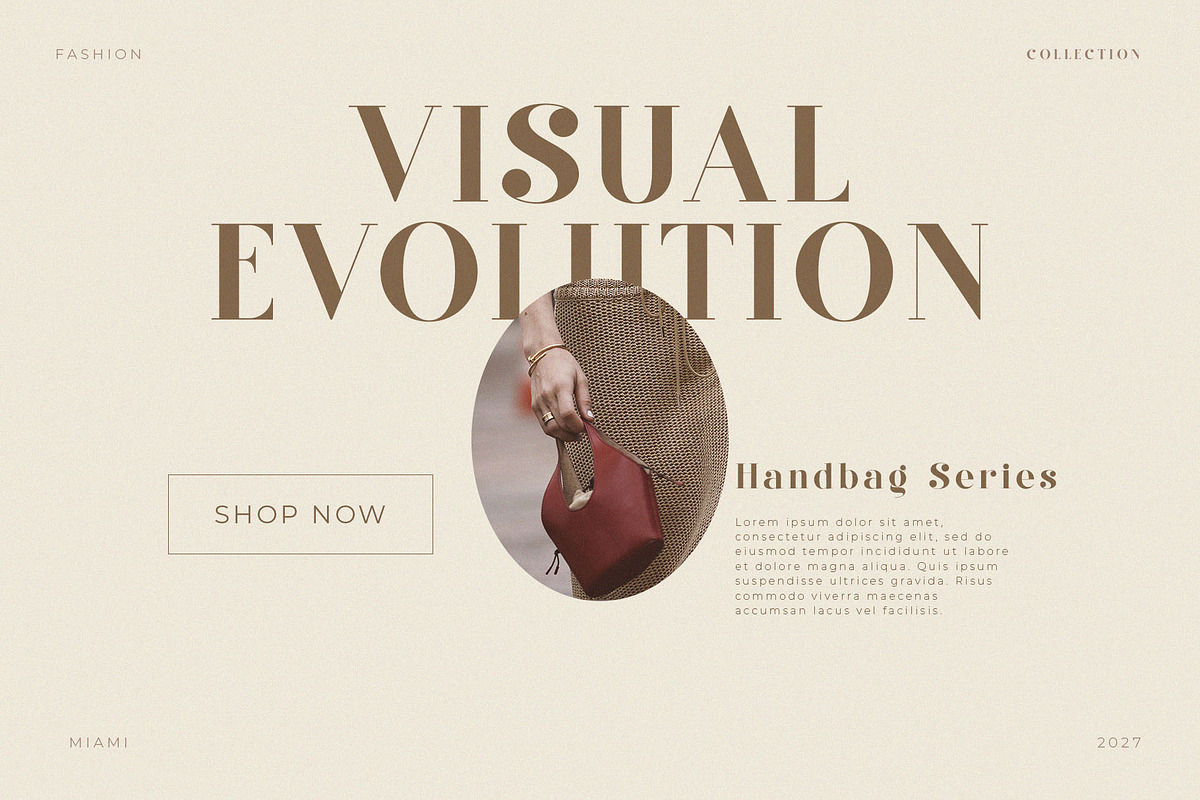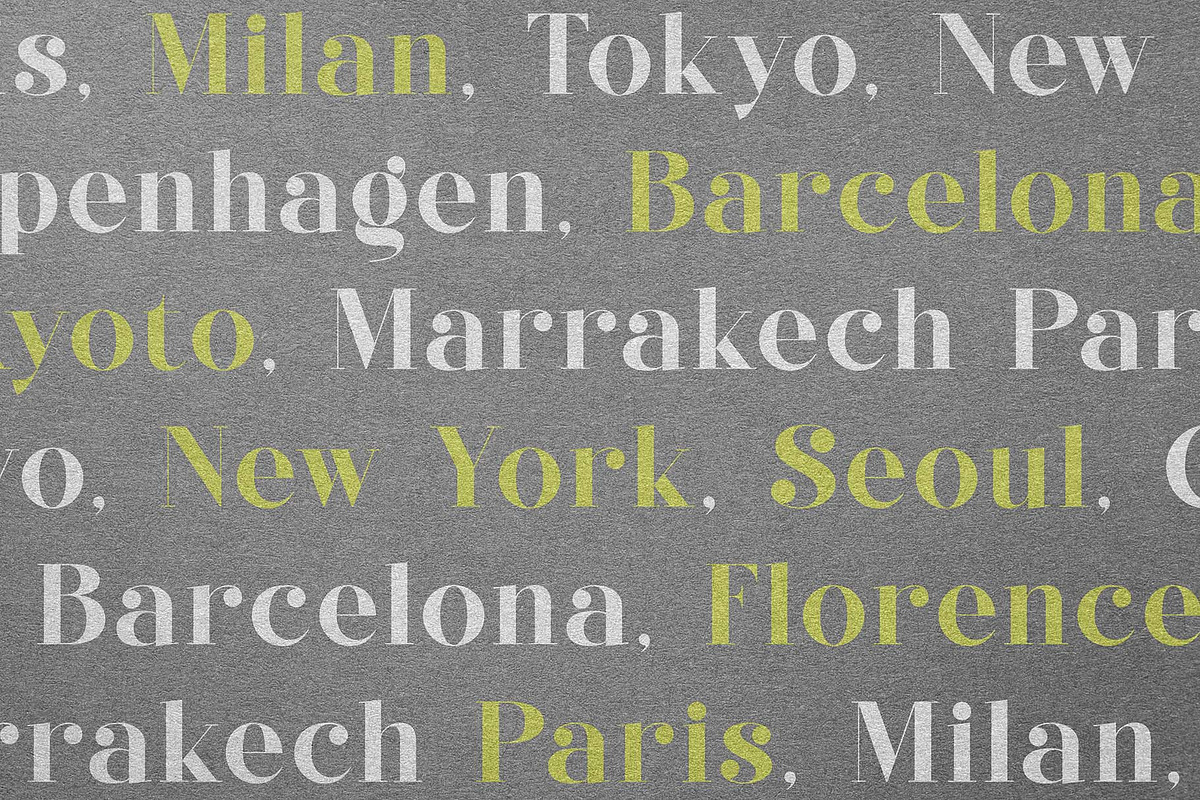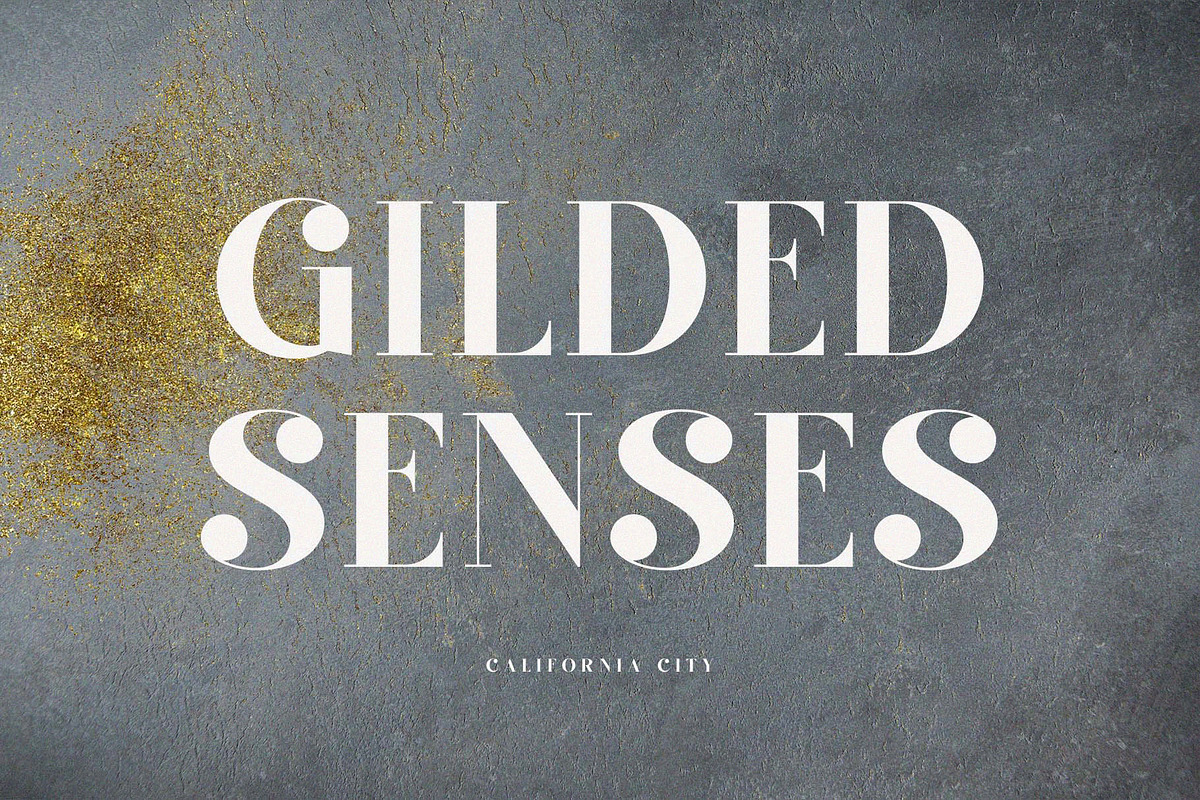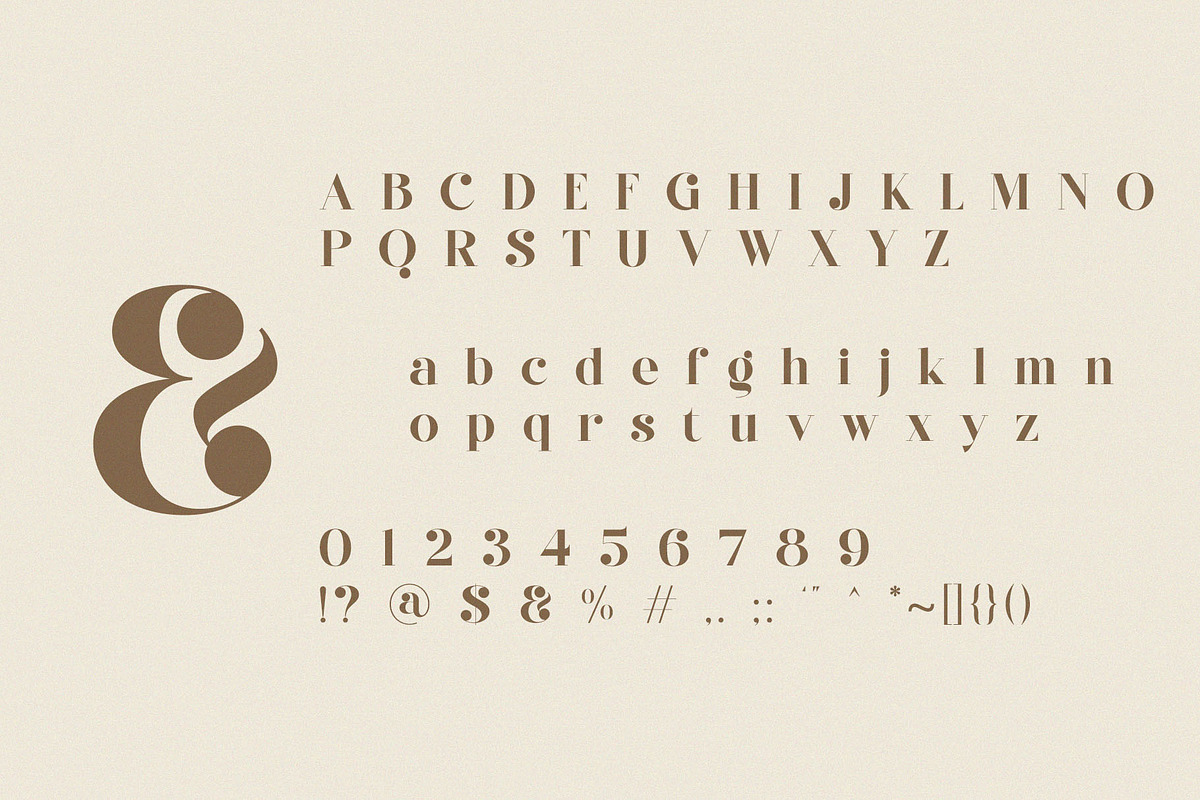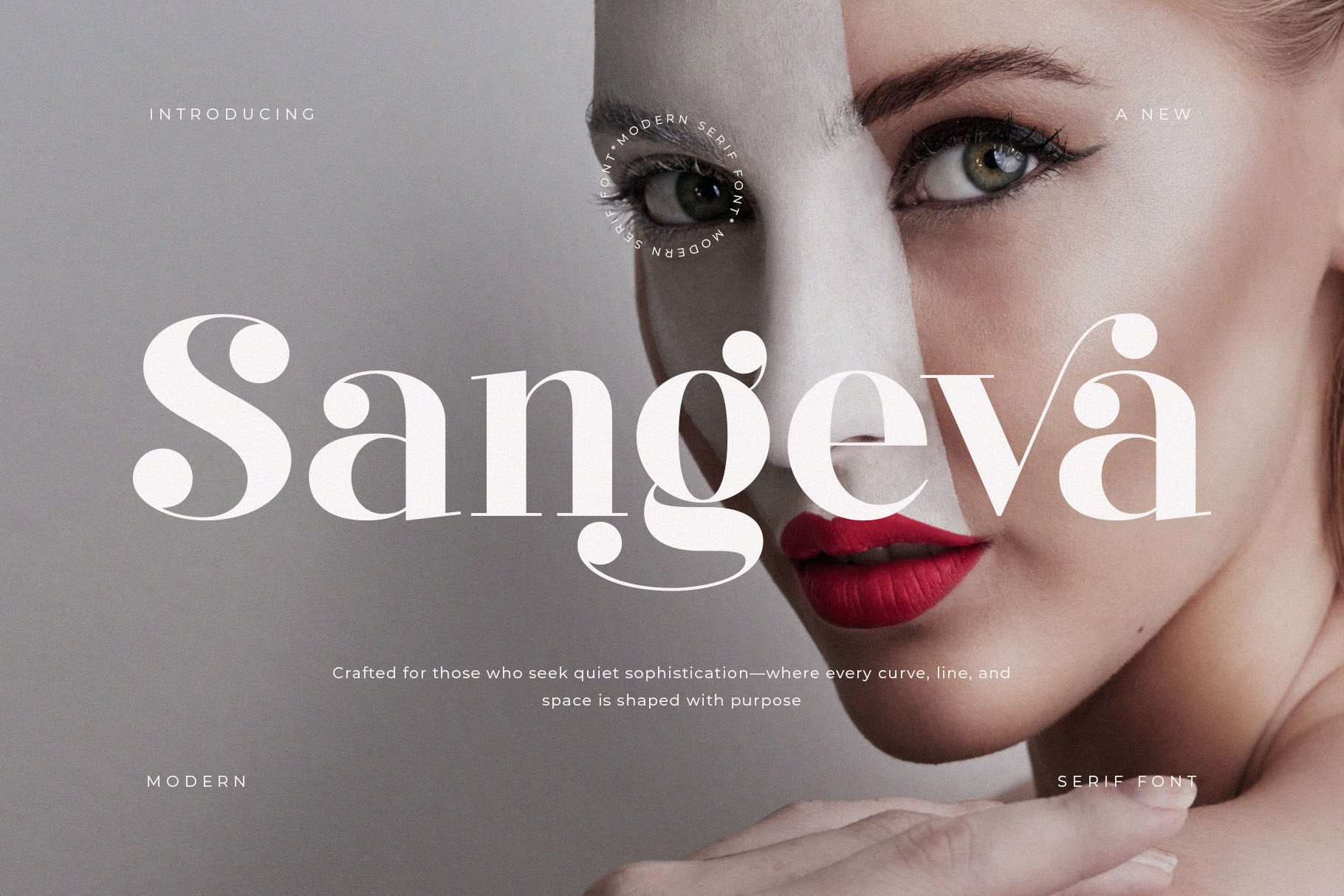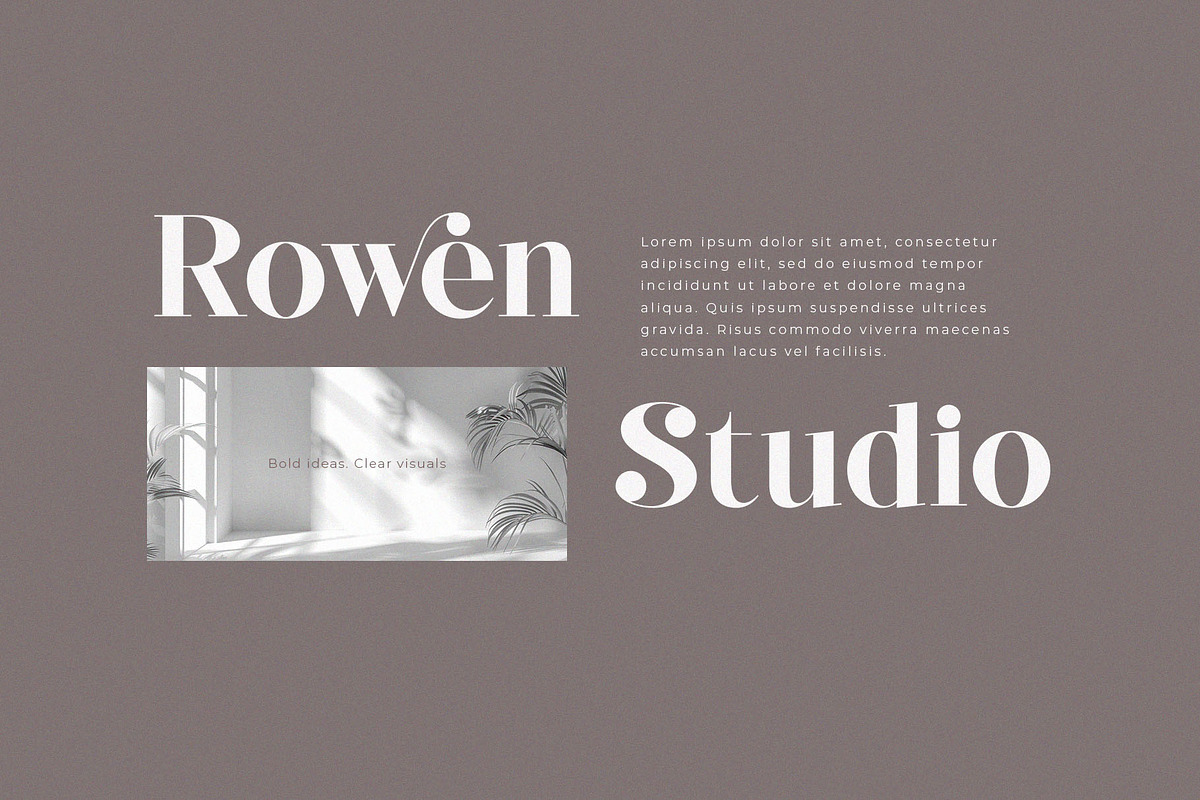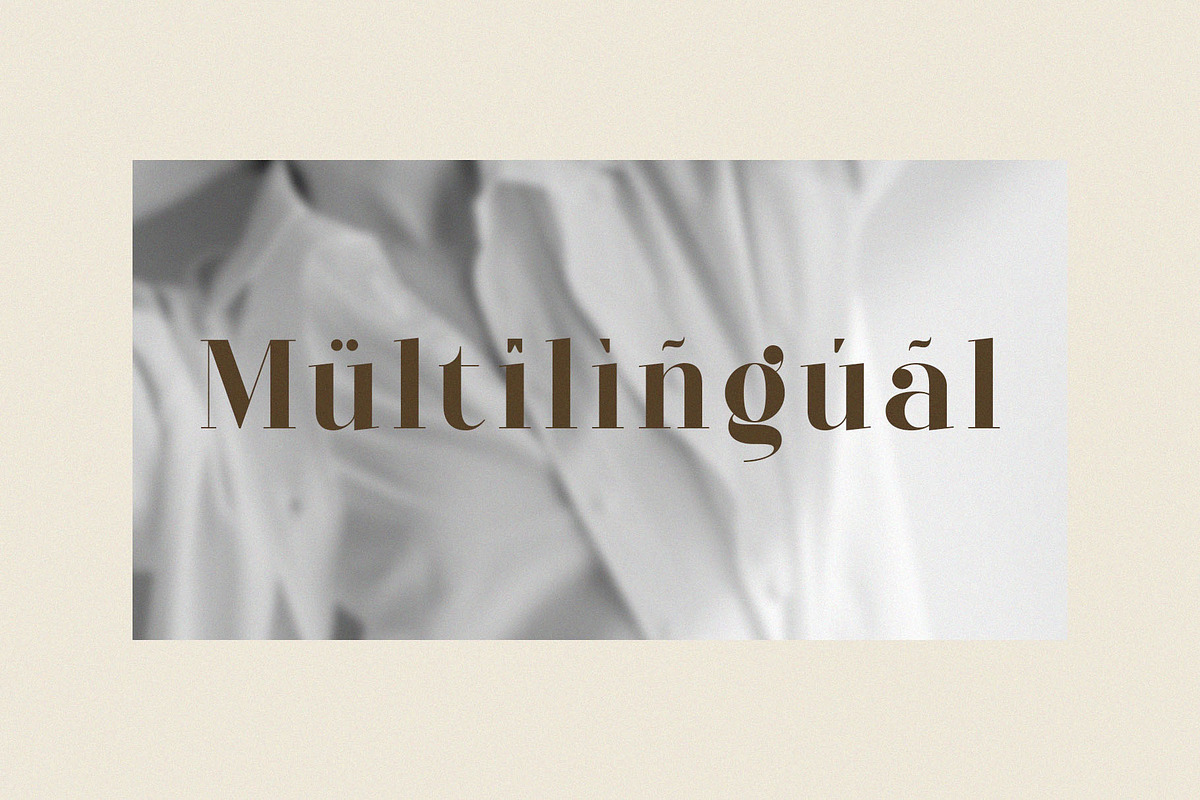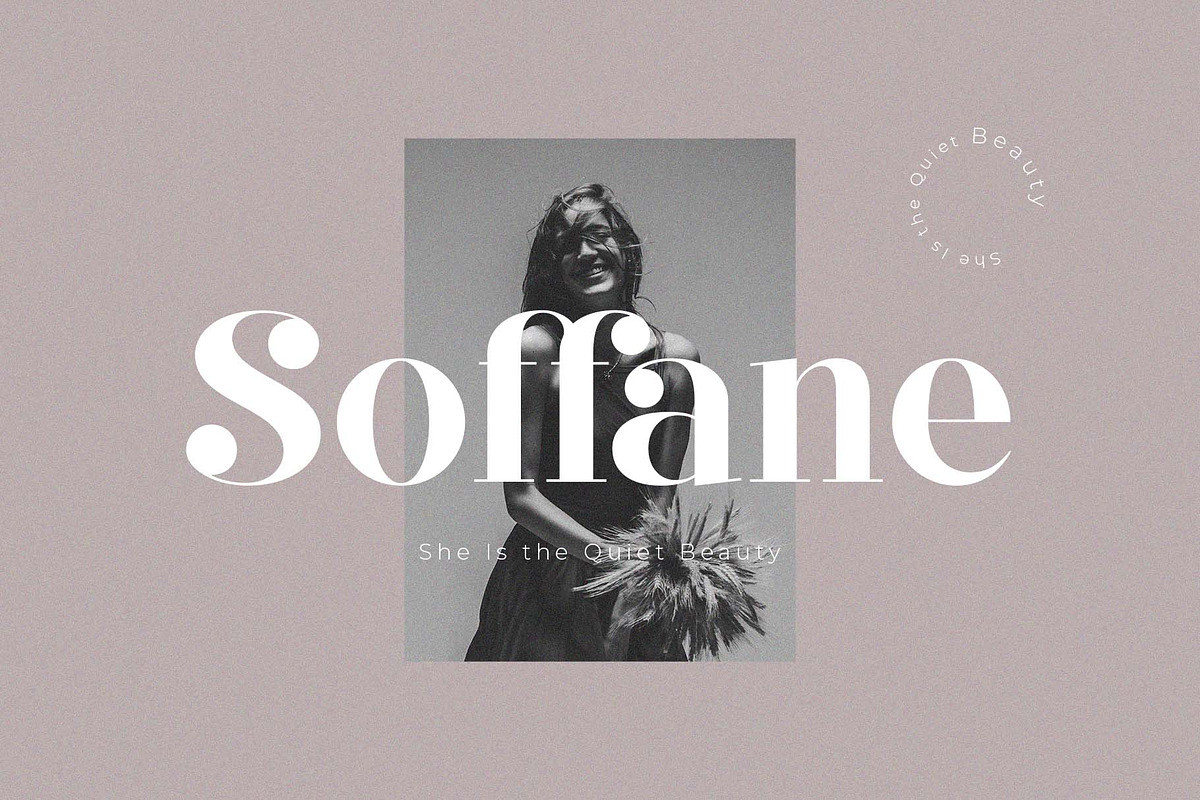
Sangeva – Elegant Modern Serif Font
Sangeva – Elegant Modern Serif Font with Uppercase & Lowercase for Luxury Branding and Editorial Design
Sangeva is a luxurious modern serif font that blends high fashion elegance with editorial sophistication. Designed with both uppercase and lowercase characters, this typeface features graceful curves, dramatic contrast, and stylish swashes — making it perfect for premium branding, beauty packaging, wedding invitations, magazine titles, and social media visuals.
Every letter in Sangeva is crafted with attention to form and balance, delivering a quiet confidence that enhances your brand identity and visual storytelling.
- Fashion & luxury brand logos
- Magazine & editorial headlines
- Elegant wedding invitations
- Cosmetic packaging design
- Instagram posts & modern print
- High-contrast modern serif
- Gorgeous swash alternates and ligatures
- Refined for print & digital use
Let Sangeva bring timeless sophistication and visual impact to your creative projects with a font that speaks elegance in every letter.